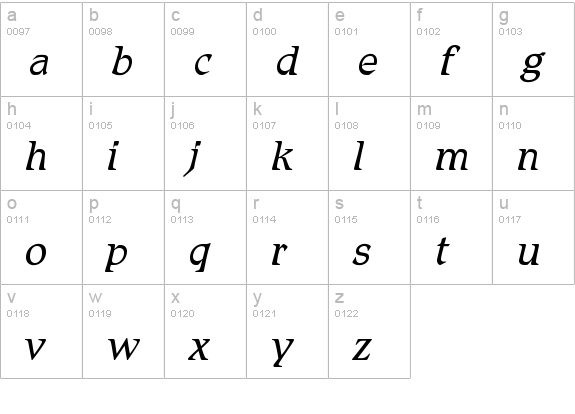
Romic Light Italic Font Details
Romic Light Italic is a refined, elegant, italic variant in the Romic typeface family \xE2\x80\x94 well suited to elegant body text, refined sub-headings, and luxury branding.
Romic Light Italic font is a beautifully crafted typeface that exudes elegance and sophistication. With its delicate curves and slanted design, this font adds a touch of grace to any project it is used in. The subtle italic style of Romic Light Italic font brings a sense of movement and fluidity to your text, making it perfect for adding a touch of flair to your designs. What makes Romic Light Italic font even more appealing is that it is completely free to download at FontsMarket.com. Whether you are working on a personal project or a professional design, this font is readily available for you to use without any cost. Impress your audience with the timeless beauty of Romic Light Italic font and elevate your designs to new heights. Download it today and let your creativity shine!